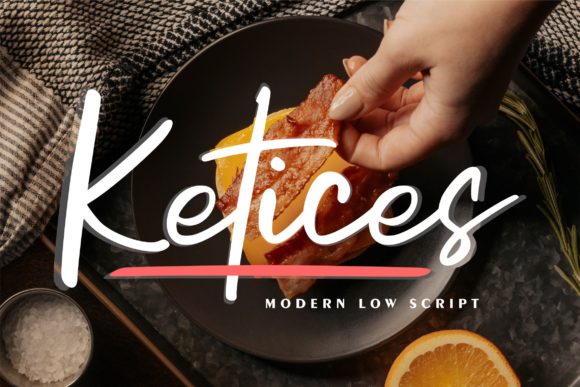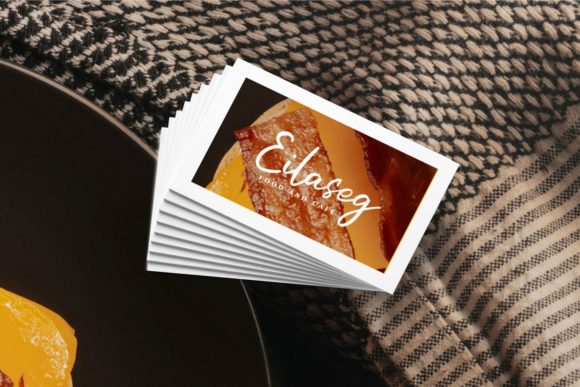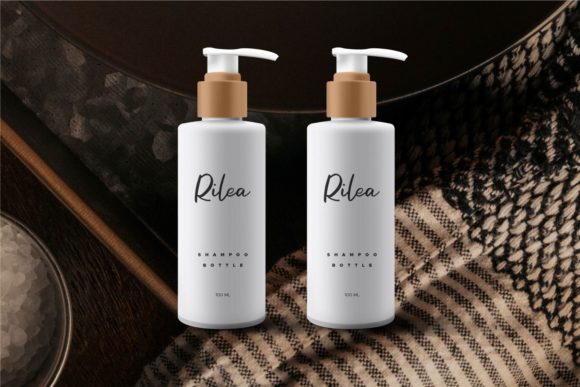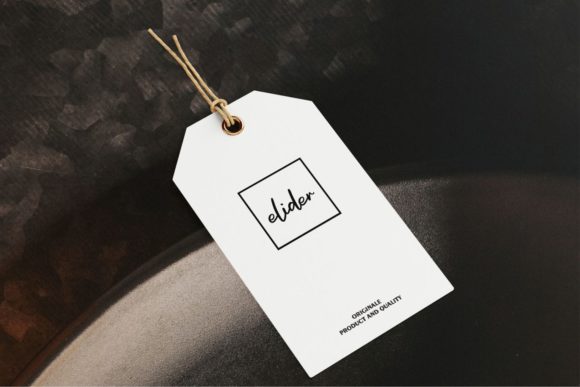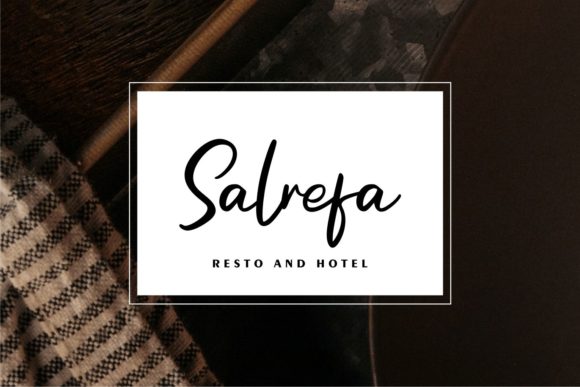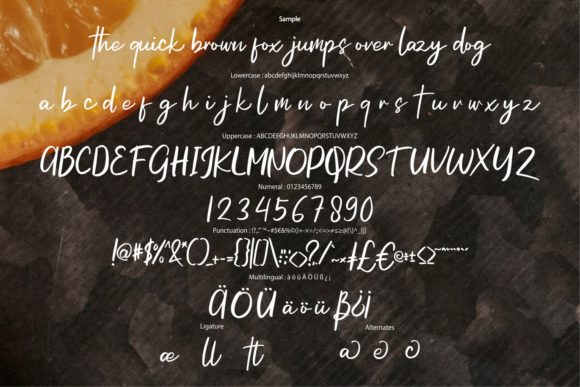
Ketices Font
Experience the allure of Ketices, a truly unique and captivating handwritten font. With its intriguing and stylish appearance, Ketices offers endless possibilities for your design projects. From eye-catching logos and branding materials to stunning quotes, invitations, and more, this font is sure to make a lasting impression.
The distinctive charm of Ketices lies in its handwritten style, which exudes a sense of individuality and creativity. Each letter is meticulously crafted with a touch of elegance, resulting in a font that stands out from the crowd. Whether you’re aiming for a modern and trendy design or a more vintage and nostalgic look, Ketices adapts effortlessly to suit your desired aesthetic.
Versatility is a key feature of Ketices, allowing it to seamlessly blend into a wide range of designs. Whether you’re creating beautiful social media graphics, designing engaging packaging, or crafting memorable event invitations, this font effortlessly enhances your visual storytelling. Its unique character shapes and fluid strokes bring a sense of authenticity and originality to your designs.
Ketices is not just visually appealing, but also highly practical. It is designed to maintain readability and legibility, even at smaller sizes or when used across various platforms. This ensures that your message is conveyed effectively, no matter the context. Ketices’ well-balanced letterforms and consistent spacing make it a reliable choice for any project.
Explore the creative possibilities of Ketices further by experimenting with its alternate characters, ligatures, and swashes. These additional features provide even more flexibility, allowing you to customize and personalize your typography. With Ketices, you can effortlessly create beautiful letter combinations, decorative flourishes, and unique typographic compositions that reflect your artistic vision.
Allow Ketices to be your creative companion, empowering you to design stunning visuals that leave a lasting impression. Its unique and interesting style will instantly captivate your audience and draw them into your world. Whether you’re a graphic designer, a content creator, or an entrepreneur, Ketices offers the perfect blend of elegance and versatility to elevate your designs.
Fall in love with Ketices and unlock its full potential in your design projects. Let its stylish and distinctive look become an integral part of your creative toolkit, and watch as your designs come to life with a touch of sophistication and charm. Embrace the versatility and visual appeal of Ketices, and create spectacular designs that leave a lasting impact on your audience.